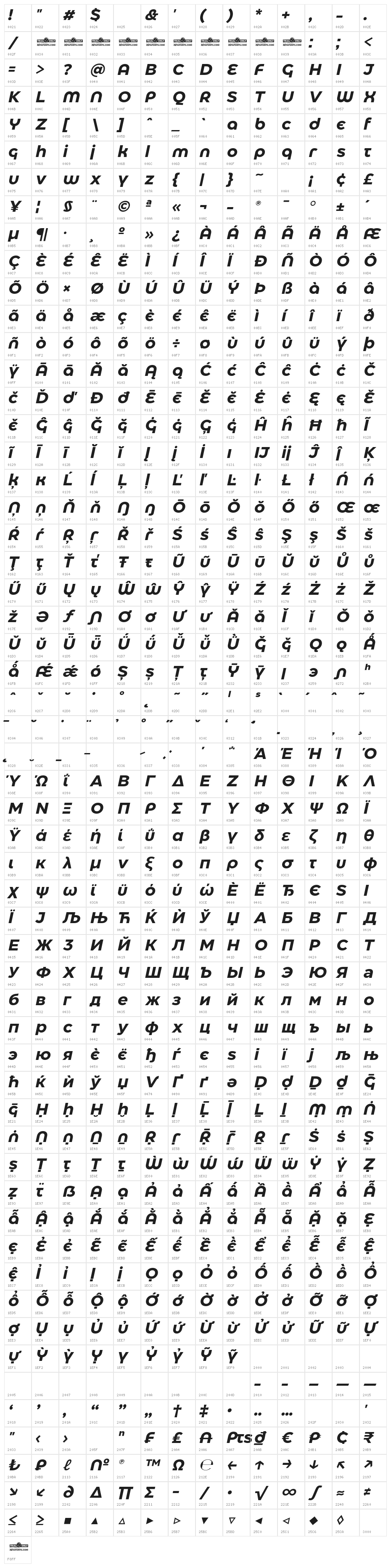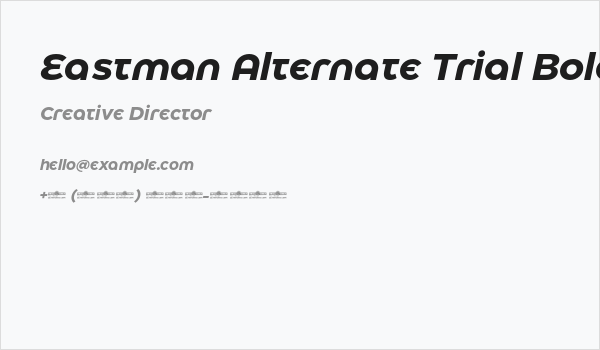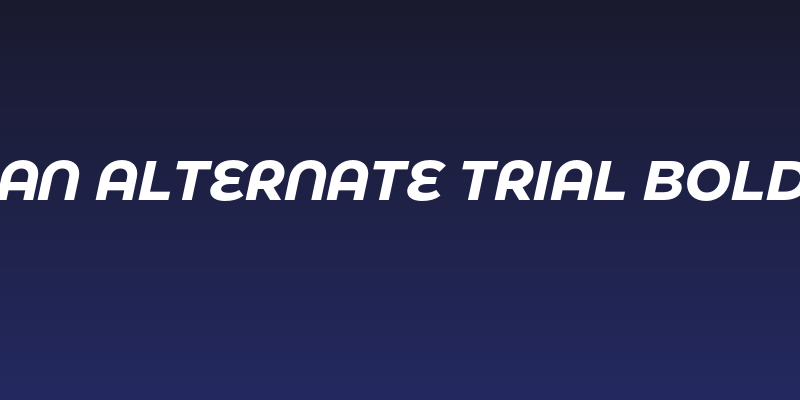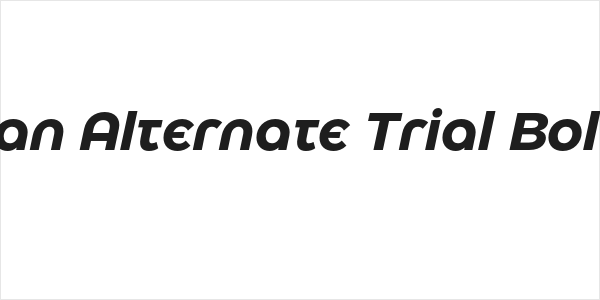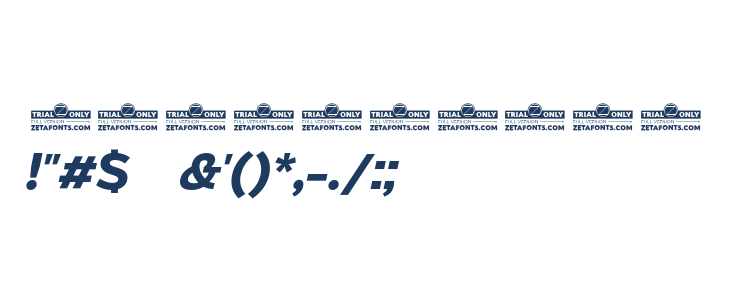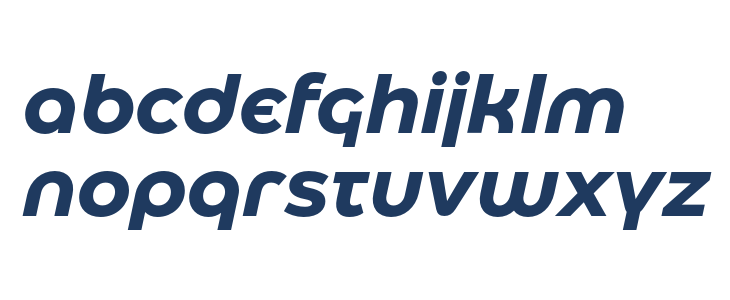
Eastman Alternate Trial Bold Italic Font
Eastman Alternate Trial Bold Italic Description
This font features a bold and italicized style, characterized by its strong, dynamic presence. The letters are slightly slanted, adding a sense of motion and energy. The strokes are thick and consistent, providing a robust appearance. The overall design is modern and sleek, with a touch of elegance due to its italic nature. The characters are well-defined, with a moderate spacing that ensures readability while maintaining a compact look. This font is versatile, suitable for various design needs where a bold statement is required.